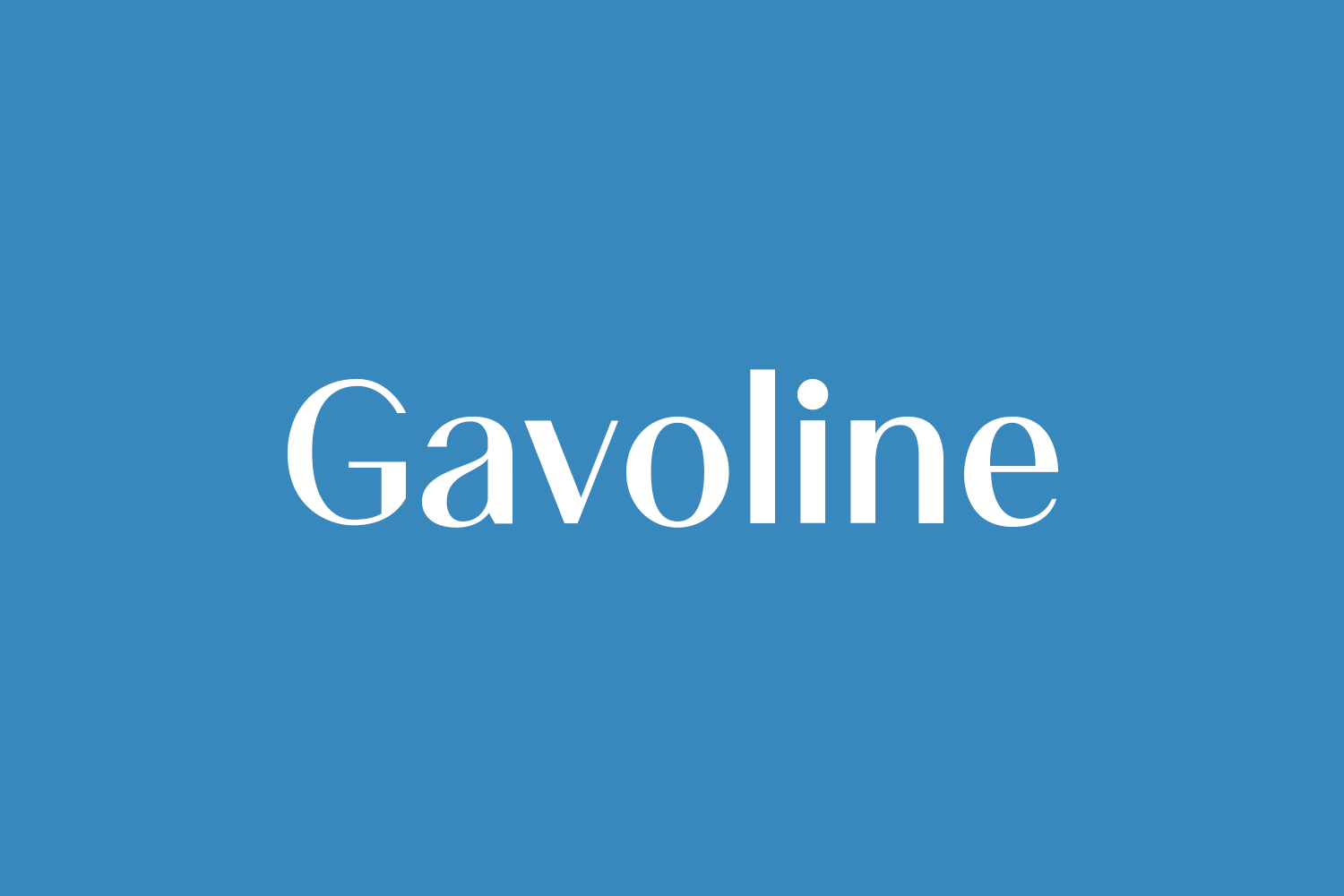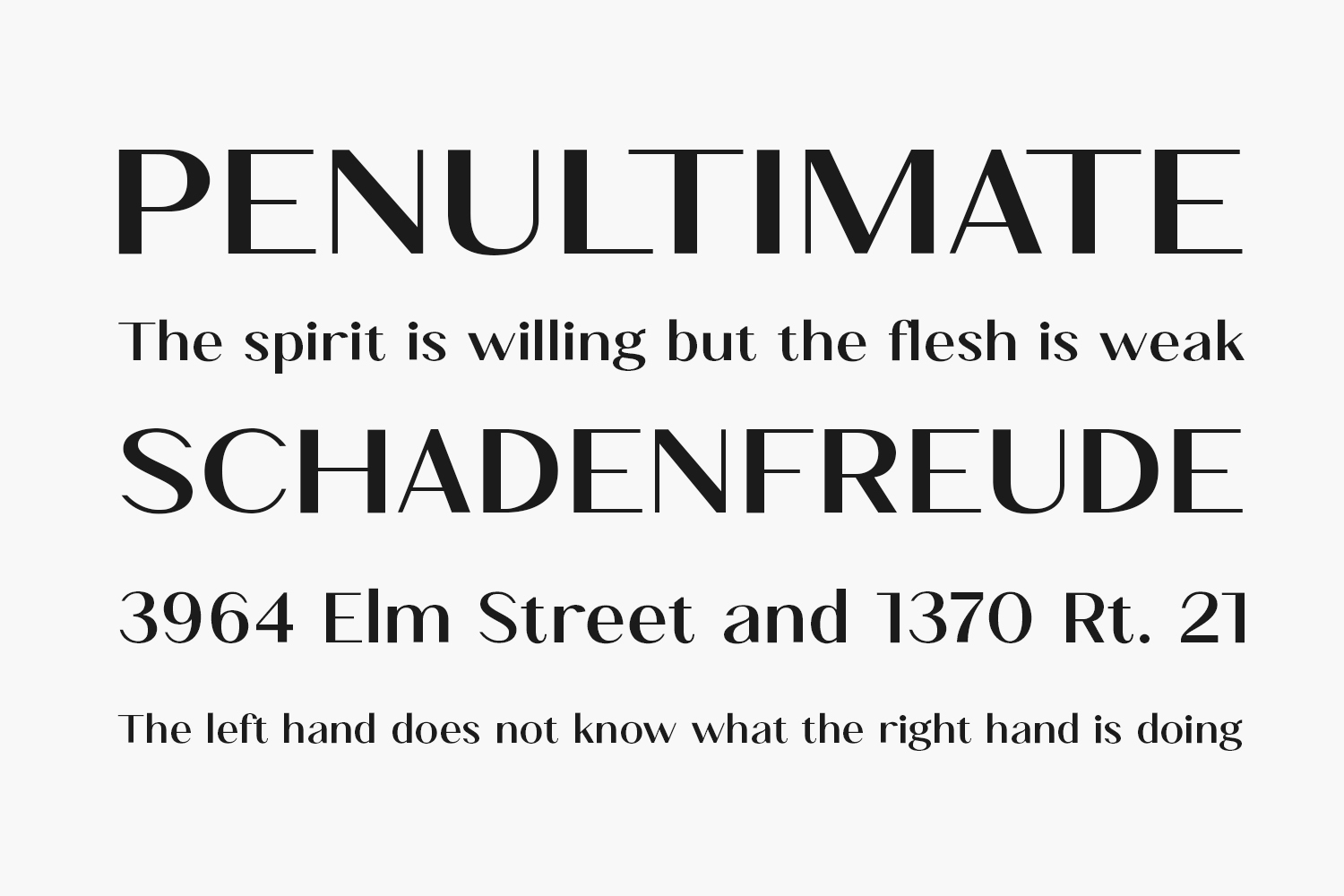
Gavoline is a clean and contemporary sans-serif typeface designed by Font Kingdom to bring clarity and elegance to your design projects. With its minimalist structure, geometric shapes, and high readability, this free font works perfectly for digital interfaces, branding materials, print layouts, and more. Available in OTF format with support for Latin characters, Gavoline is ideal for designers seeking a modern sans-serif font that blends simplicity with style.
Why Choose Gavoline?
- Minimalist & Geometric Style: Designed with clean lines and balanced proportions for a sleek, modern look.
- Ideal for UI/UX Design: Perfect for websites, mobile apps, and user interface elements.
Where to Use Gavoline?
Gavoline shines across a variety of creative applications:
- User Interface (UI) Design: Ideal for app headers, buttons, or web typography requiring clarity.
- Editorial & Print Layouts: Great for blog posts, magazine headers, and clean newspaper titles.
- Personal Branding: Adds a modern edge to resumes, portfolios, and personal stationery sets.
- Digital Projects: Works beautifully in landing pages, infographics, and online ads.
- Graphic Templates: Perfect for Canva, Figma, or Illustrator templates needing a fresh typographic style.
Design Tips with Gavoline
To get the most from Gavoline, pair it with bolder fonts like Oswald or Montserrat for contrast in multi-layered designs. Use it at medium sizes for optimal readability in paragraphs or smaller text blocks. For digital use, apply subtle shadows or outlines to enhance legibility on light backgrounds. Try our interactive font preview tool below to test Gavoline with your own text before downloading!